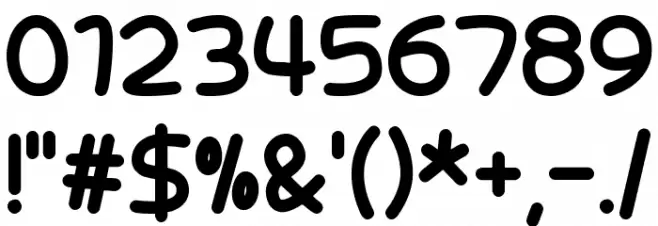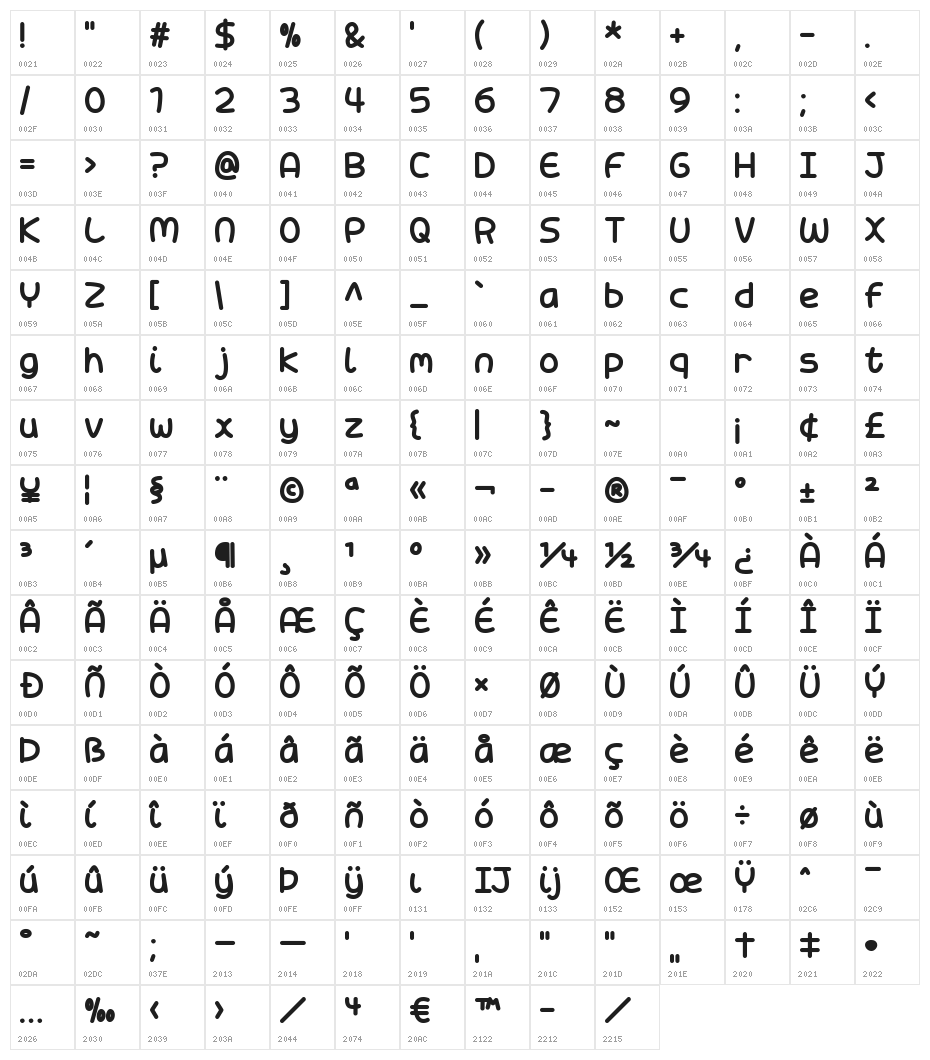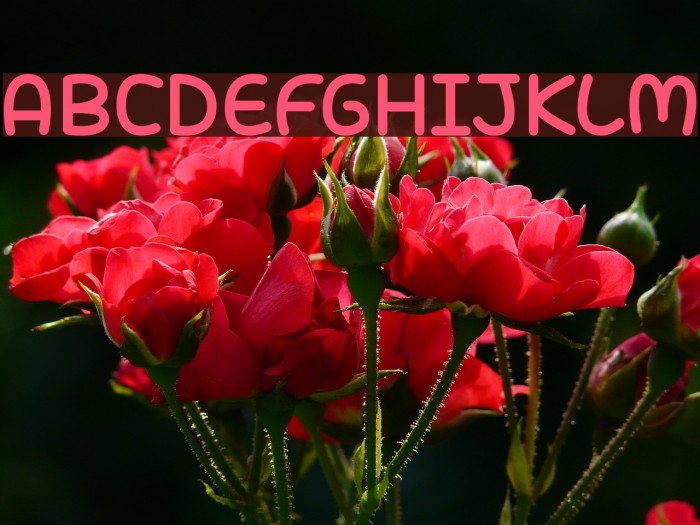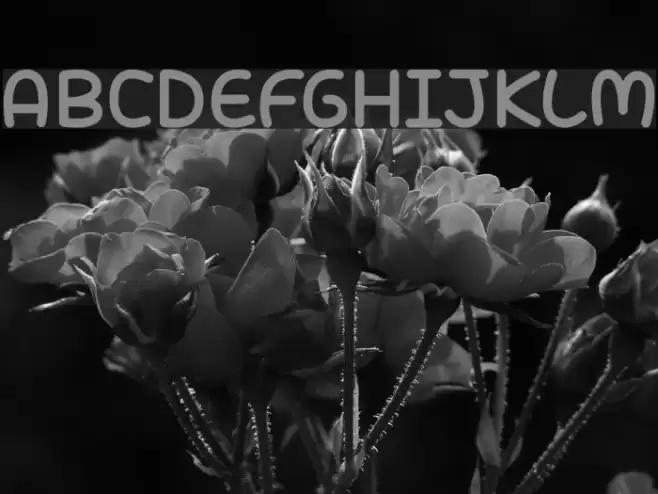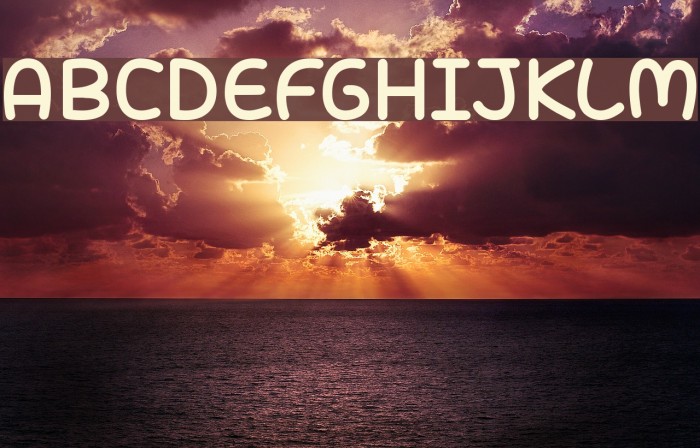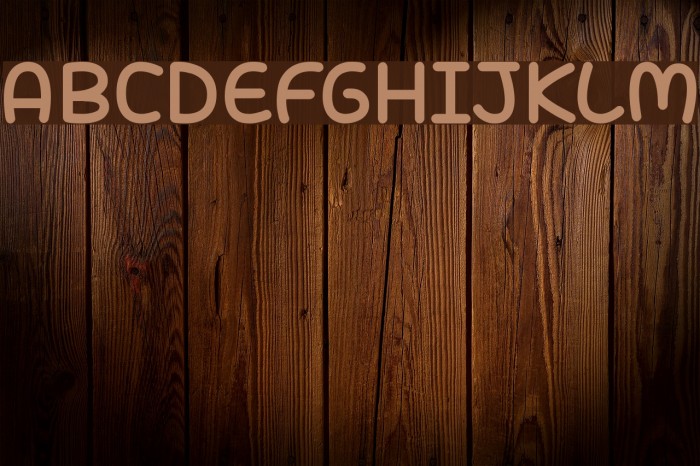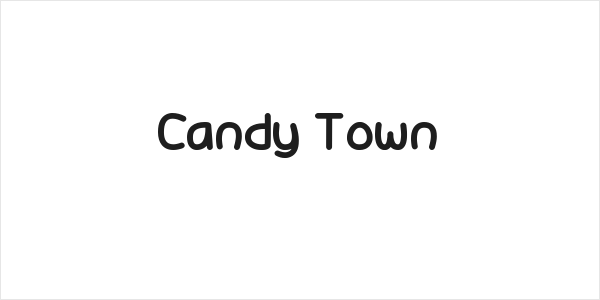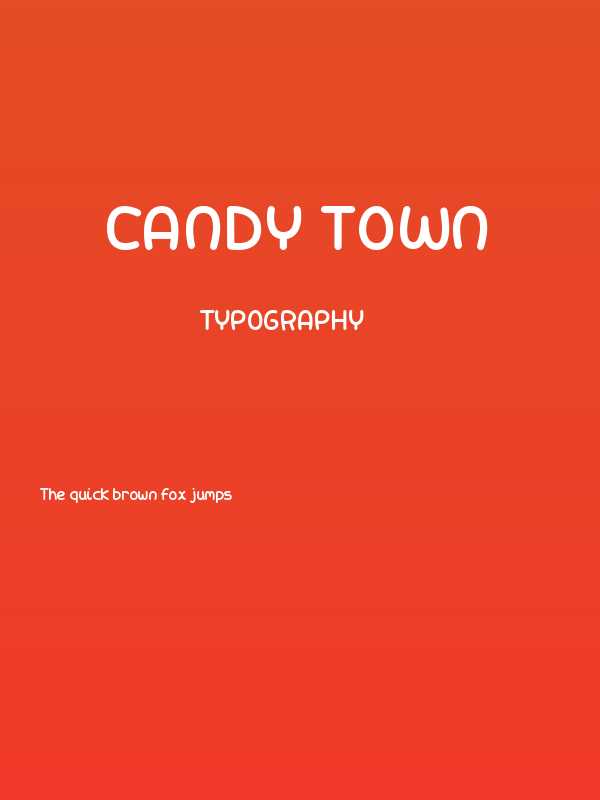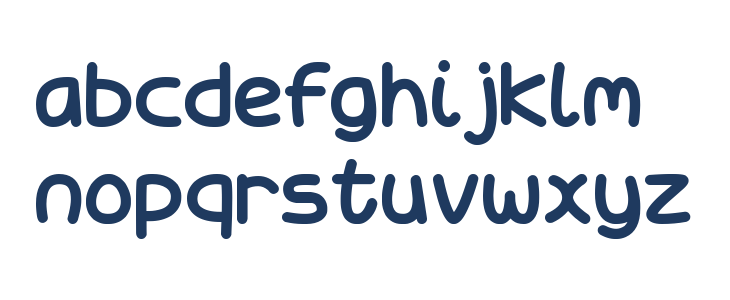
Candy Town Font
Candy Town Description
This playful and whimsical font features rounded, bubbly characters that exude a sense of fun and lightheartedness. The letters are evenly spaced with a consistent stroke width, giving it a cohesive and friendly appearance. The font's smooth curves and lack of sharp edges make it approachable and suitable for a variety of creative projects. Its design is reminiscent of childhood and innocence, making it perfect for applications that require a touch of joy and simplicity. The characters are well-balanced, ensuring readability while maintaining a unique and engaging style.
| Proposed Projects | Ideal for children's books, playful branding, party invitations, and casual social media graphics. |